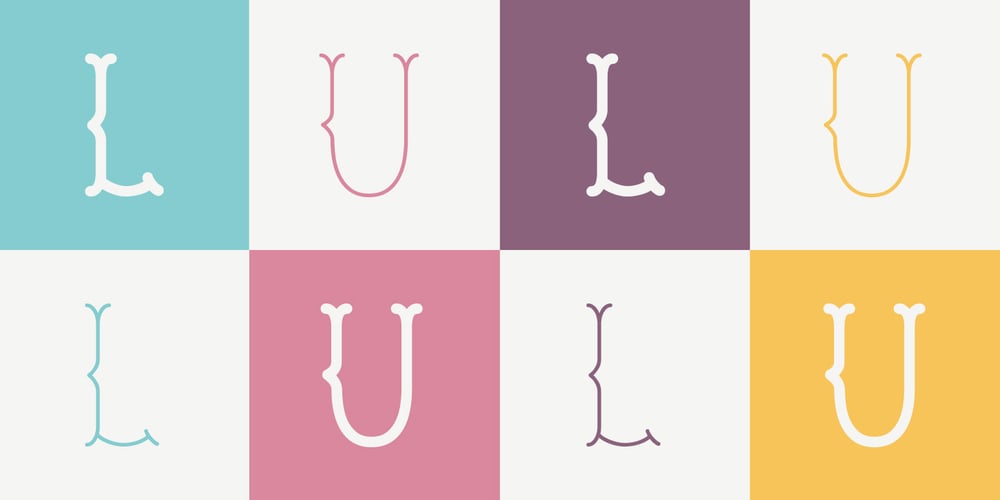
LU LU Font Family was designed by Pascal Barry and published by Design by Pascal. LU LU contains 2 styles and family package options. A mono-weight, bifurcated serif typeface in all caps. Based off of an old classic French biscuit logo. This distinctive vintage display typeface can also evoke edgier sentiments when set in a moodier context, as well as making for a playful option when set in a soft colour palette.